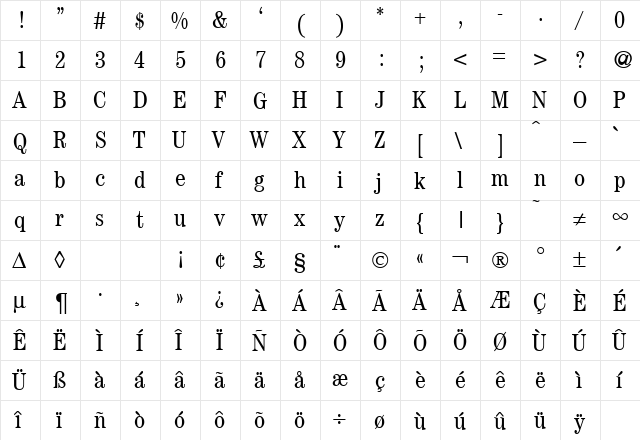
ModernCenturyCond Regular
Design Context for ModernCenturyCond Typeface
ModernCenturyCond is a composed and adaptable typeface that performs quietly and consistently across a wide range of design contexts. Its narrow stance lets it pack a punch even in space-constrained designs.
Pro Tip: Use ModernCenturyCond in both headline and body roles to test its range before committing to a single application.